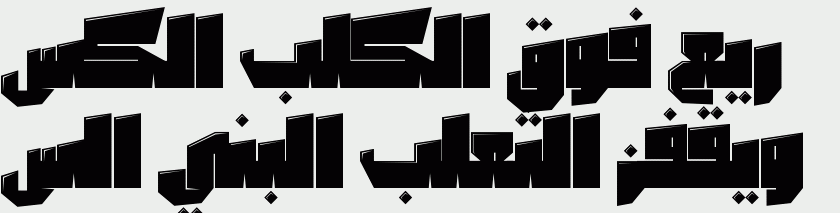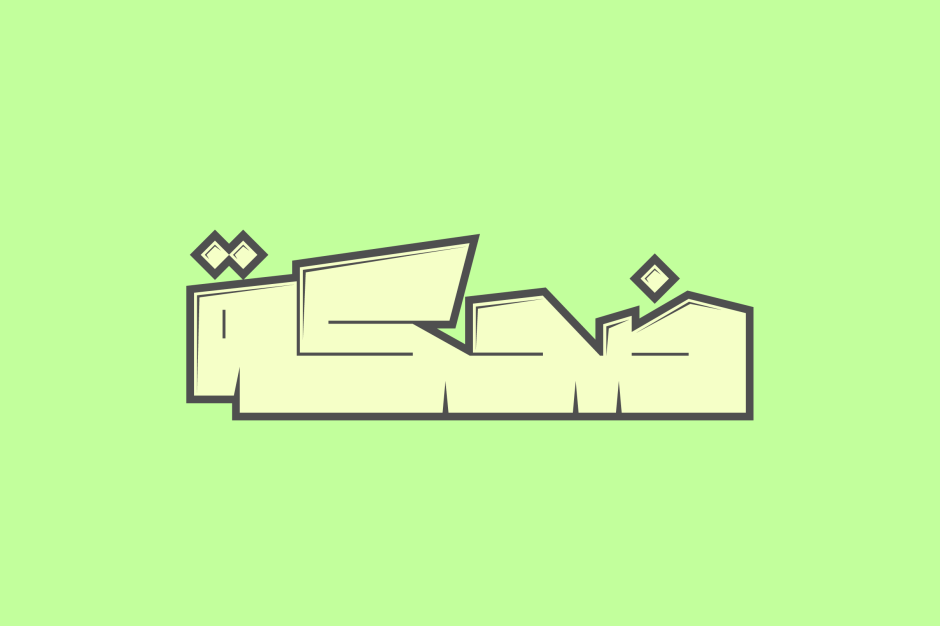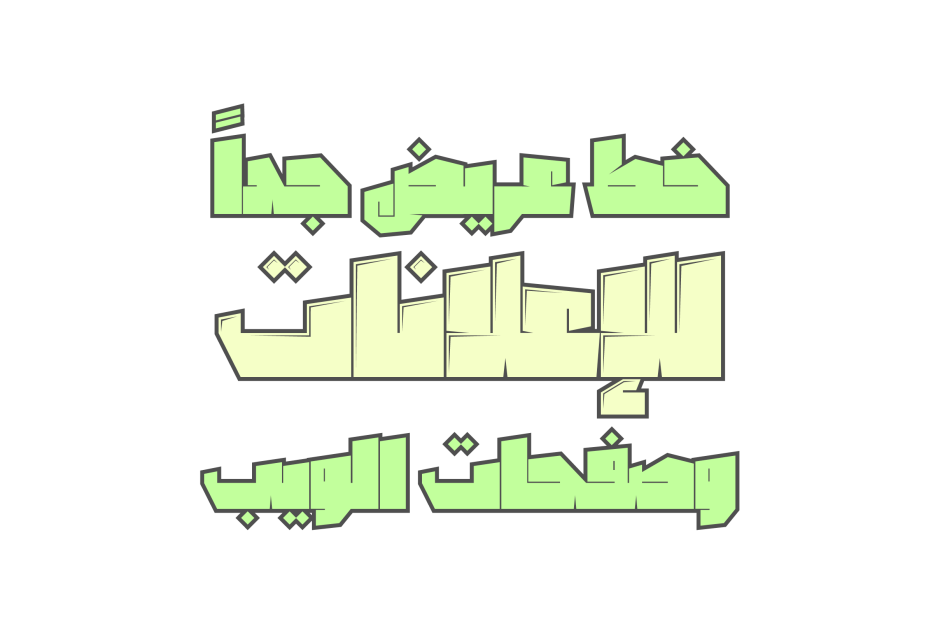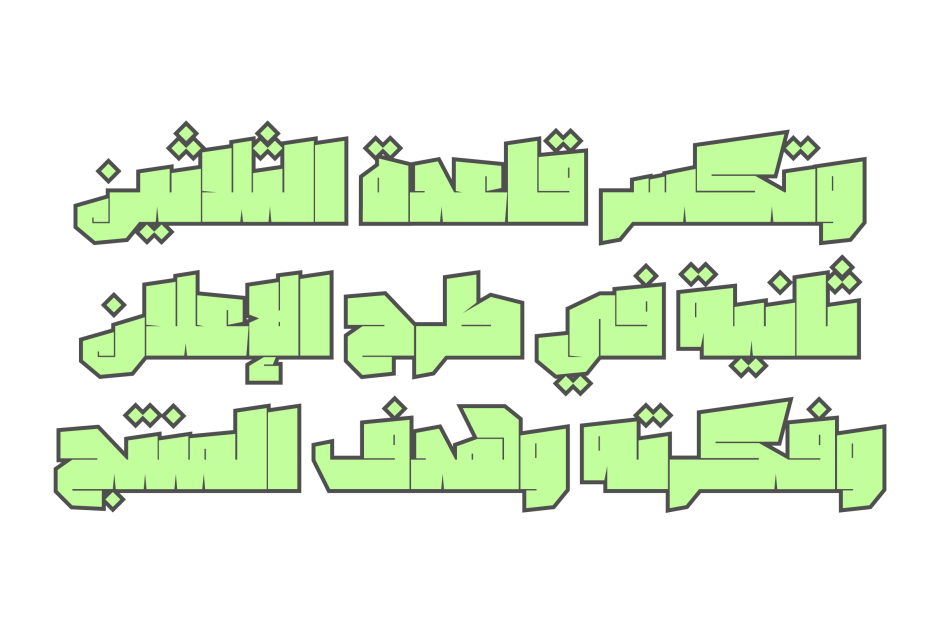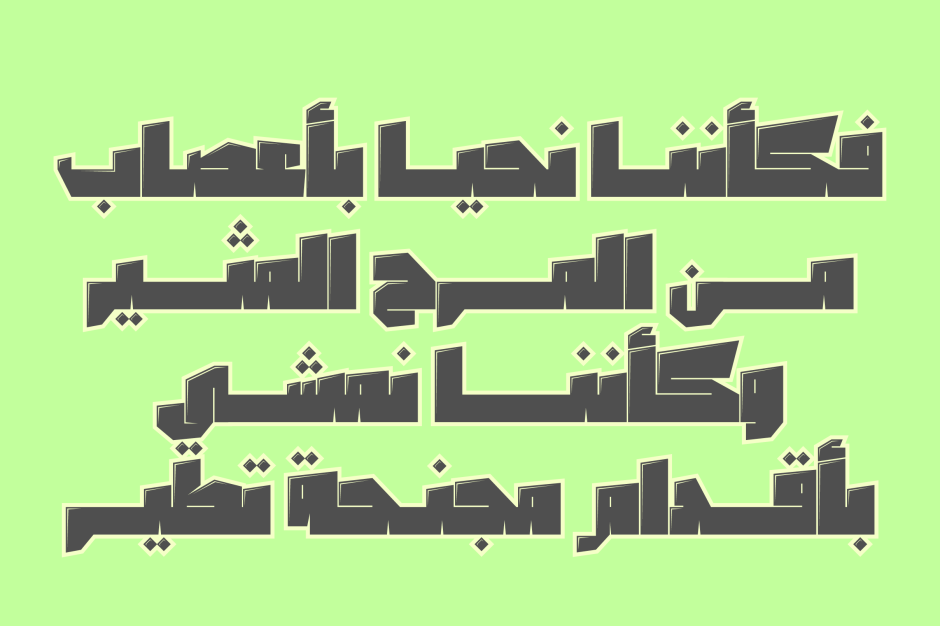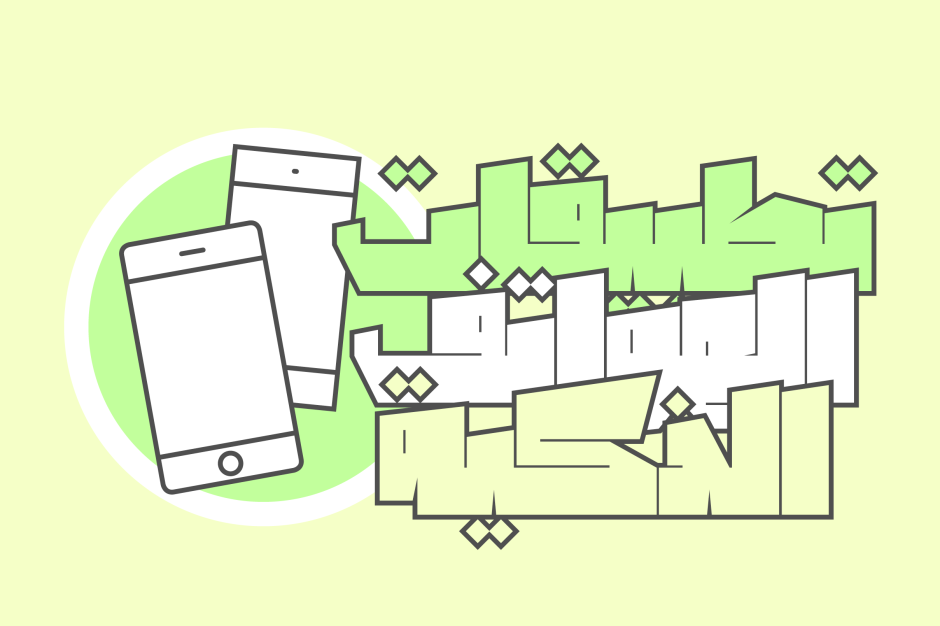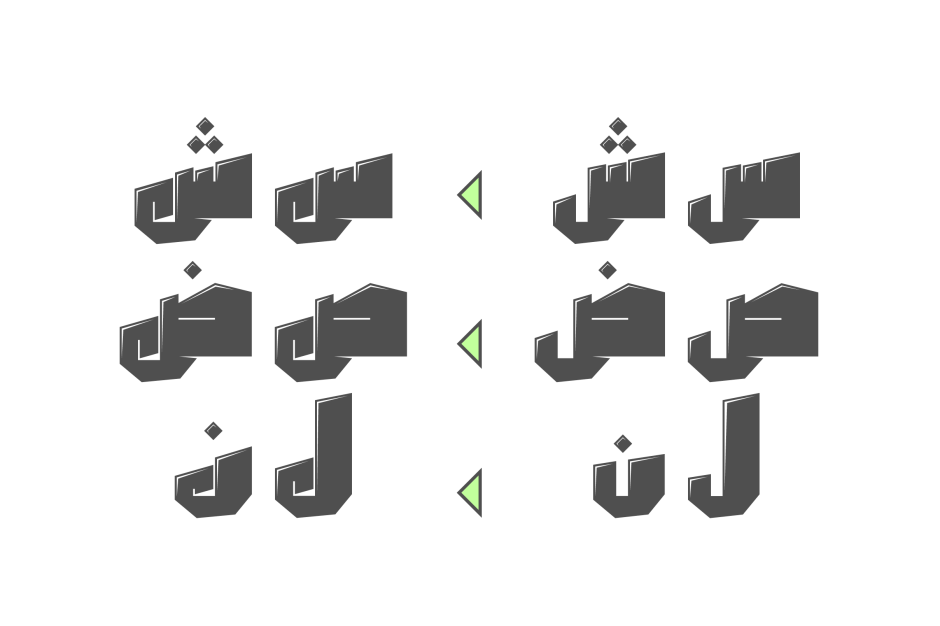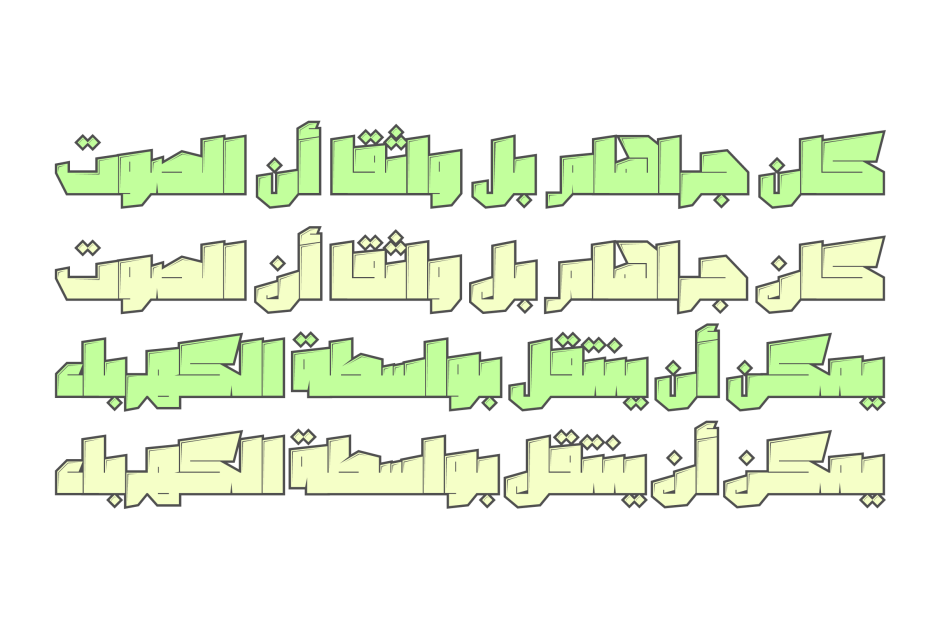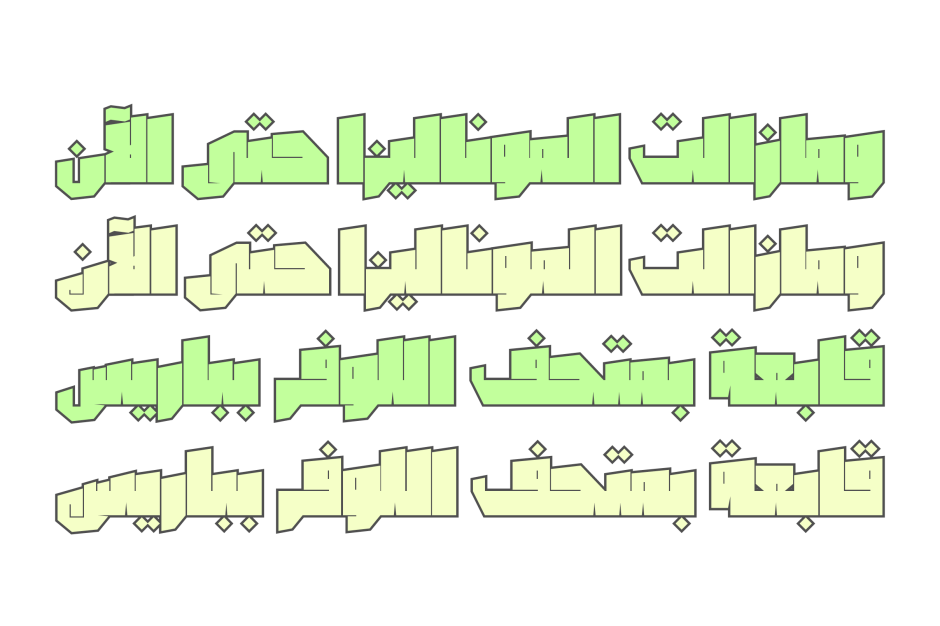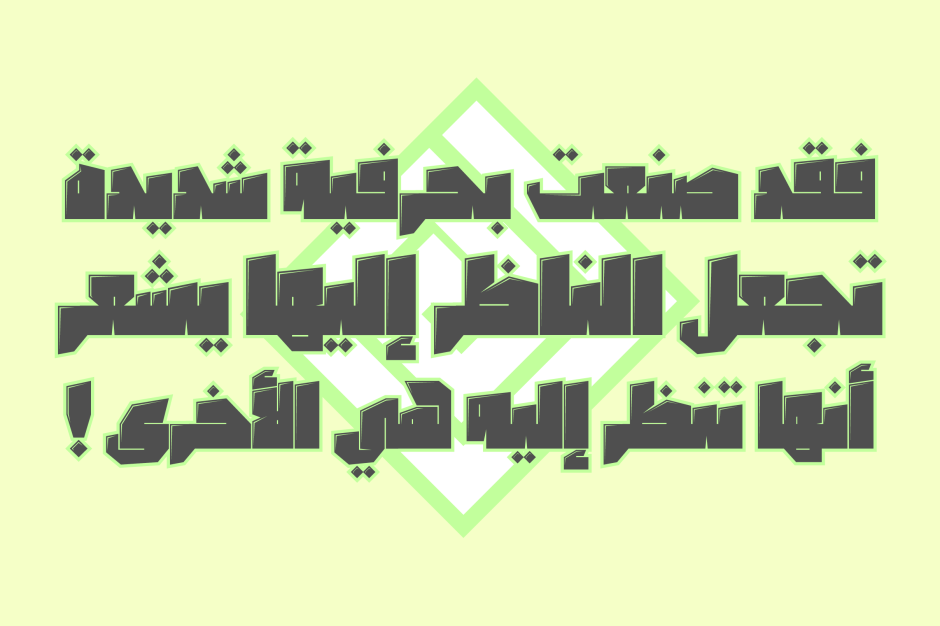
Dahka
/ Dahka Embossed
Dahka is a humorous Arabic font that comes in two styles, normal and embossed. It suits various range of display purposes including web design, advertising, branding and mobile applications.